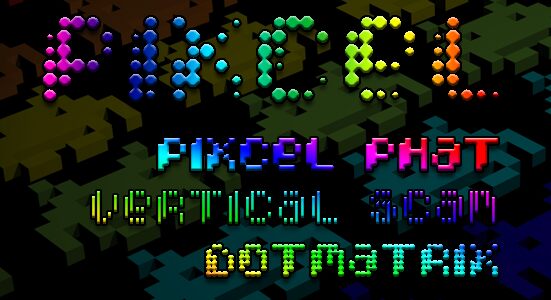
Pixcel by TracerTong is a free dot-matrix pixel font with the look of an oversized LED sign. Its circular lights create broad, irregular silhouettes and generous internal gaps, with several characters taking on a loose, almost pictorial shape rather than a rigid terminal face.
An arcade, retro game studio, or electronic music label could use it for branding, merchandise, and event posters that recall scoreboards, cabinet displays, and homemade light panels. In digital graphics, the scattered round marks can become part of a blinking interface or animated sign, linking the lettering directly to buttons, indicator lamps, and simple screen imagery.